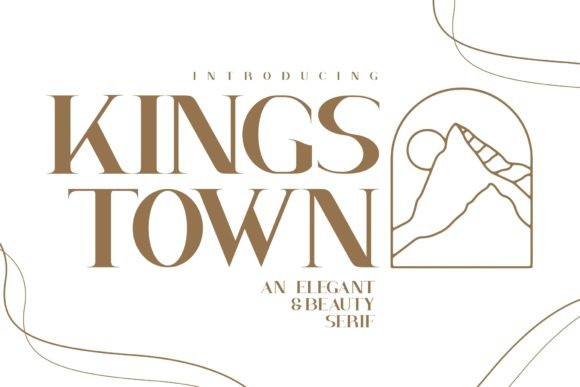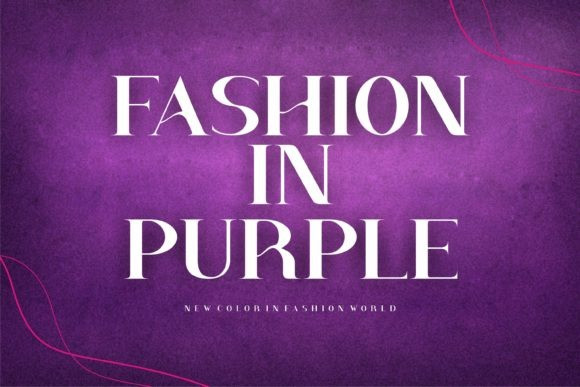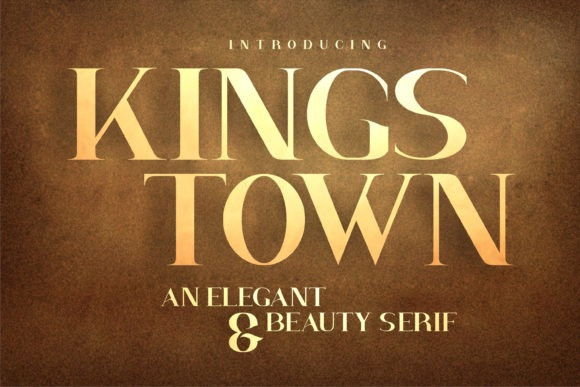
Kings Town Font
Kings Town Font is an elegant and bold serif font with a modern style, and it looks classy and full of charisma. You can use it for various projects, such as blog posts, logos, branding, ads, invitations, greeting cards, planners, photo albums, decorations, and much more.